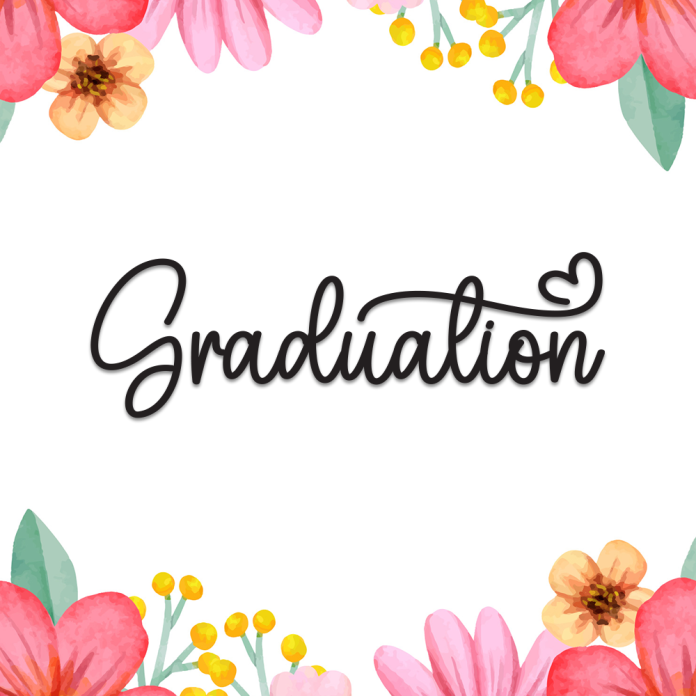
Graduation is a cheerful and informal handwriting font that captures the joyful spirit of a new chapter. Its handwritten strokes give off a relaxed and friendly vibe, perfect for celebratory and academic-themed projects.
Handwriting style with a personal, casual touch
Smooth lines and natural flow
Great for graduation cards, event posters, yearbooks, and school merchandise
Celebrate success in style with Graduation – a handwritten font full of positivity and personality.